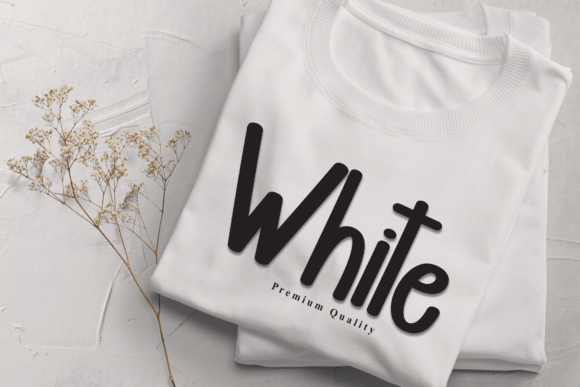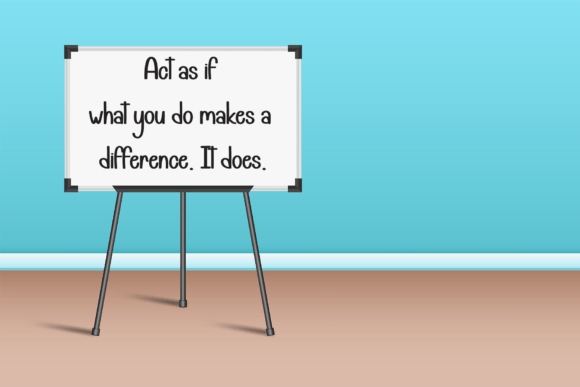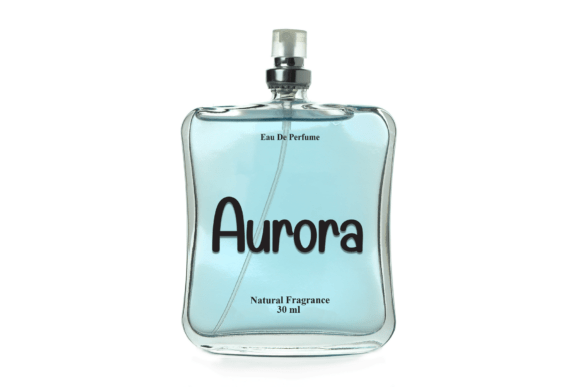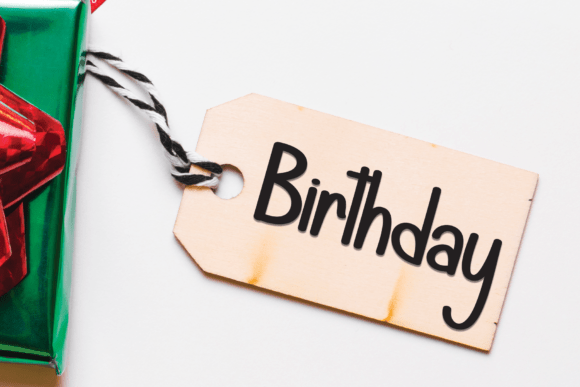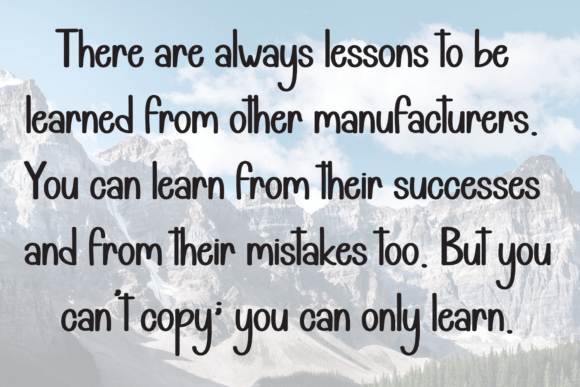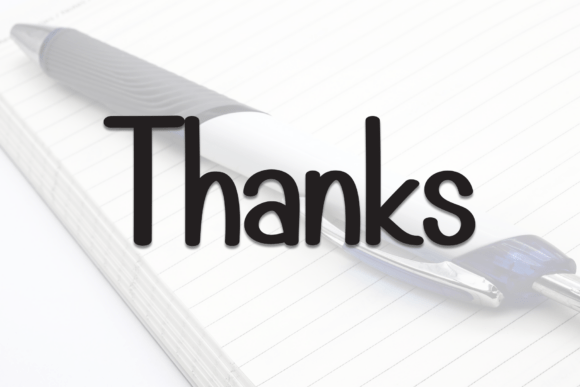
Discovering the Perfect Brushstroke: Introducing Ballpoint Font
Do you remember the first time you received a handwritten letter from a loved one? The warmth and personality that radiated from those scribbled words, the imperfections that made it feel more genuine? As creatives, we strive to evoke that same feeling in our designs, and that’s exactly where Ballpoint Font comes in – a delightful handwritten display font that exudes charm and warmth.
With its cute and fun character, Ballpoint Font is the perfect accompaniment to wedding invitations, greeting cards, or any design that requires a sprinkle of lightheartedness. Its enchanting dynamics make it an exquisite tool for designers seeking to add a delightful, fun-filled touch to their work. Whether you’re looking to create a whimsical logo or a heartfelt greeting, Ballpoint Font is the perfect companion to bring your ideas to life.
Ballpoint Font Key Features
- Unique Characteristics: Ballpoint Font features a unique blend of modern and vintage elements, with distinctive ballpoint pen-inspired strokes and subtle texture effects.
Designer Review: Ballpoint Font
Overall, I have mixed feelings about Ballpoint Font. While it has its strengths, it also has some notable weaknesses. Here’s my honest review:
- The Ballpoint Font has a unique, handwritten feel that’s perfect for creative projects.
- Its versatility makes it suitable for both digital and print media.
- The font is highly legible, even at small sizes.
- It’s a great choice for branding and advertising materials.
- The font’s uniqueness can also be its downfall, as it may not be suitable for formal or professional projects.
- The Ballpoint Font lacks consistency in its letterforms, which can make it look sloppy at times.
- It may not be the best choice for long blocks of text, as it can be difficult to read.
Overall, I think the Ballpoint Font is a great addition to any designer’s toolkit. While it may not be perfect for every project, it’s a versatile and highly legible font that’s perfect for creative and branding work. With a little caution and consideration, it can be a valuable asset in your design arsenal.
Practical Application Guide for Ballpoint Font
Tips for Getting the Most Out of Ballpoint Font
Use Ballpoint Font in conjunction with a textured background or a subtle gradient to create a realistic effect. Experiment with different font sizes and styles to achieve a unique look. Don’t be afraid to add a touch of imperfection to give your design a handmade feel.
Ballpoint Font is perfect for creating invitations, greeting cards, and other paper crafts. It’s also great for adding a personal touch to presentations, reports, and other business documents. Use it to create a unique and eye-catching design that stands out from the crowd.